26 Elegant Fonts for Wedding Invitation Design 2026
As a designer, I focus on creating wedding visuals that feel emotional, timeless, and deeply personal. This curated selection of 26 elegant fonts for wedding invitation design in 2026 is something I use in my own projects to bring that vision to life.
Each typeface in this collection is chosen for its balance of sophistication and readability — from delicate script styles to refined modern serifs. These fonts work beautifully across wedding invitations, save-the-dates, stationery suites, menus, and branding details.
My goal is always to translate love stories into visual form, and typography plays a key role in setting the right mood — romantic, minimal, rustic, or luxurious, depending on the couple’s style.
Bridgerton Elegant Font
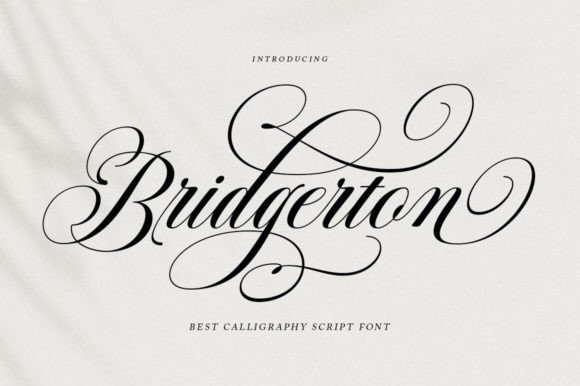
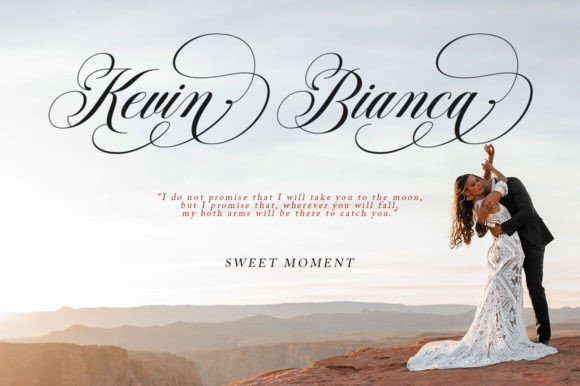
I use Bridgerton Script in my design projects when I want to create a luxurious and elegant atmosphere. Its classic copperplate calligraphy style with a modern touch adds sophistication to invitations, branding, packaging, fashion visuals, and editorial layouts. I love how the smooth and graceful letter connections make every composition feel refined, feminine, and timeless while still remaining clean and easy to read.
Loving Elegant Font
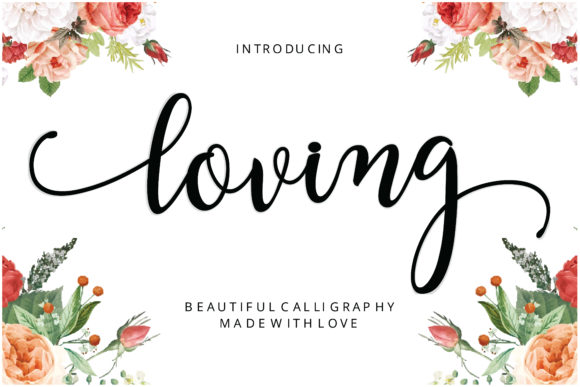
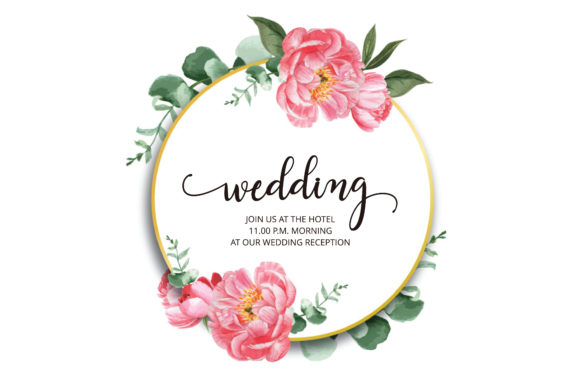
I use Loving in my design projects when I want typography that feels soft, playful, and romantic. Its beautiful script style adds warmth and charm to branding, invitations, social media graphics, and creative layouts. I love how it brings an expressive and elegant personality to my designs while keeping the overall look light and visually appealing.
Mylove Elegant Font
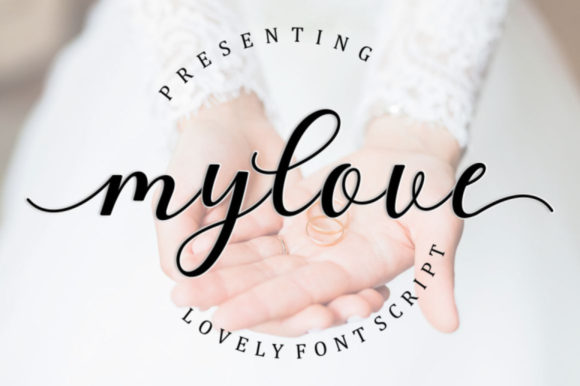
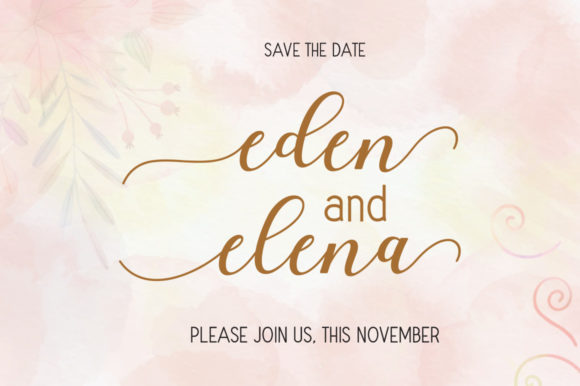
My love is a flowing and delicate handwritten font that embodies charm and elegance in every character. Use it for projects that need lovely, romantic typography! This font is PUA encoded, which means you can access all of the glyphs and swashes with ease!
Angista Script Elegant Font
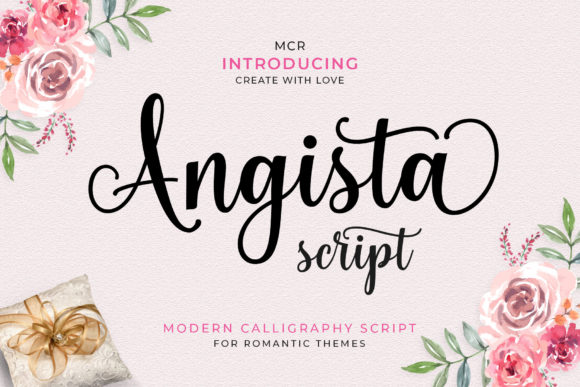
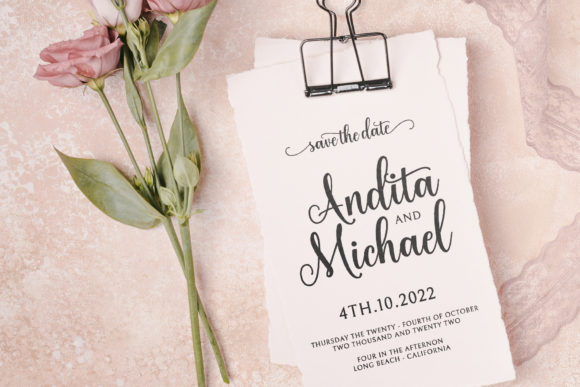
I use Angista Script in my design projects when I want typography that feels delicate, elegant, and luxurious. Its flowing characters that dance along the baseline help me create refined branding, wedding invitations, packaging, and social media visuals with a graceful touch. I also value its PUA encoding, which gives me easy access to beautiful glyphs and swashes for more expressive and customized typography.
Hey Magnolia Elegant Font
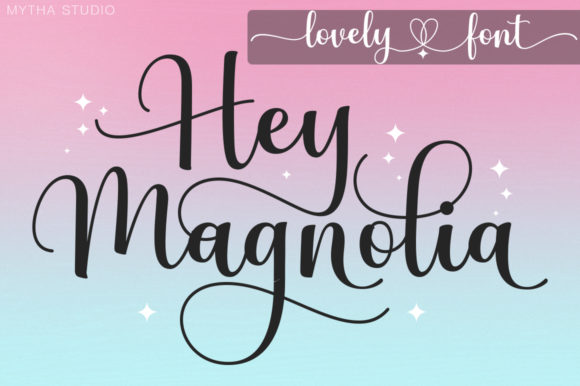
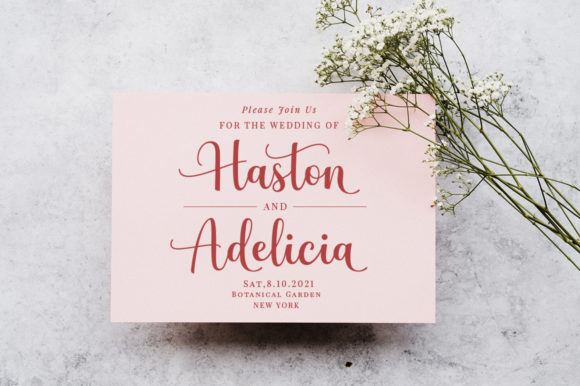
I use Hey Magnolia in my design projects when I want typography that feels personal, stylish, and full of character. Its unique handwritten style helps me create eye-catching branding, social media graphics, invitations, and creative layouts with a modern artistic touch. I also enjoy the flexibility of its PUA encoding, which gives me easy access to beautiful glyphs and swashes for more expressive and customized designs.
Rellista Script Elegant Font
Rellista is a stunning modern script font that adds elegance and sophistication to any creative project. I love using it for branding, wedding invitations, logos, packaging, and social media graphics because its stylish handwritten lettering feels fresh and luxurious. The smooth flowing strokes and contemporary calligraphy style make every design look refined, eye-catching, and professionally crafted.
Feeling Elegant Font
I use Feeling, an elegant script font, when I need a charming and refined appearance in my design projects. Its flowing style adds a graceful touch to invitations, branding, and creative layouts. I also appreciate that it’s PUA encoded, giving me easy access to all glyphs and swashes for more expressive typography. It helps me create soft yet expressive compositions that feel personal and polished.
Gastonia Script Elegant Font
I use Gastonia in my design projects when I want to bring a sense of luxury and sophistication to the composition. Its elegant modern calligraphy style, flowing strokes, and refined curves make it perfect for wedding invitations, premium branding, upscale packaging, and editorial layouts. I love how its timeless and romantic character adds a graceful, high-end feel to every design.
Ontime Elegant Font
I use Ontime in my design projects when I want elegant script typography with a refined contemporary feel. Inspired by timeless classic calligraphy, its balanced strokes and graceful curves help me create sophisticated branding, wedding invitations, packaging, and editorial layouts. I also appreciate its PUA encoding, which gives me easy access to stylish glyphs and swashes for more detailed and expressive compositions.
Masterline Calligraphy Elegant Font
I use Masterline Calligraphy in my design projects when I need elegant typography with a modern and artistic feel. Its casual calligraphy style and beautiful swashes help me create refined logos, wedding invitations, branding, packaging, posters, and signature-style layouts. I like how the font adds a smooth and expressive touch while keeping every composition stylish and visually balanced.
Elizabeth Elegant Font
I use Elizabeth in my design projects when I want elegant typography with a timeless and refined feel. Its graceful script style helps me create sophisticated branding, wedding invitations, packaging, and editorial layouts that feel polished and luxurious. I also appreciate its PUA encoding, which gives me easy access to beautiful glyphs and swashes for more expressive and customized designs.